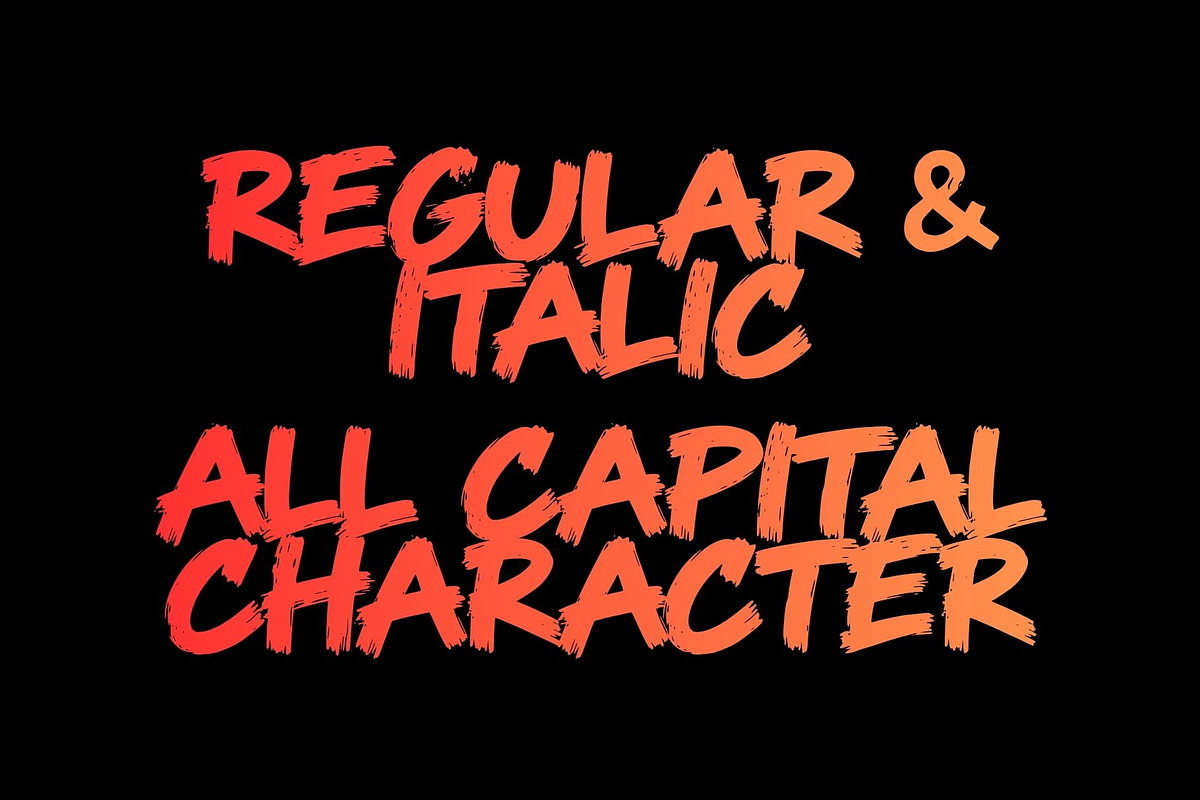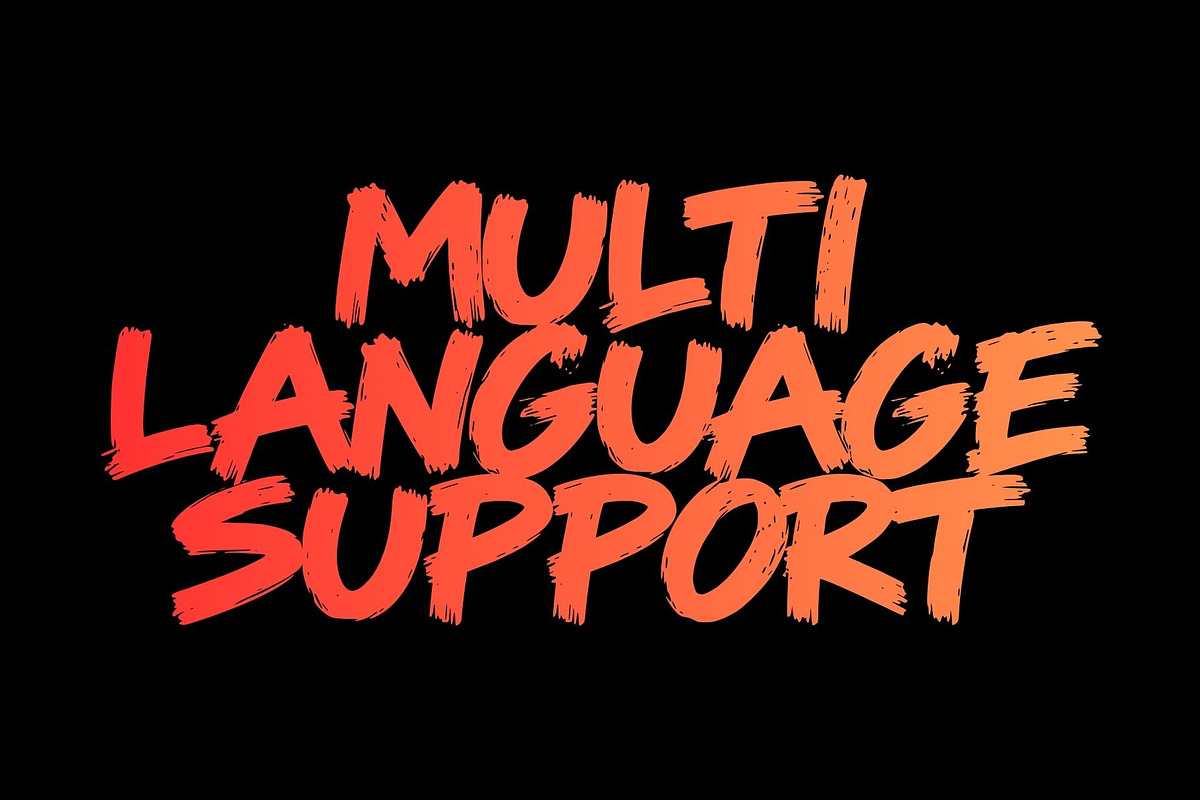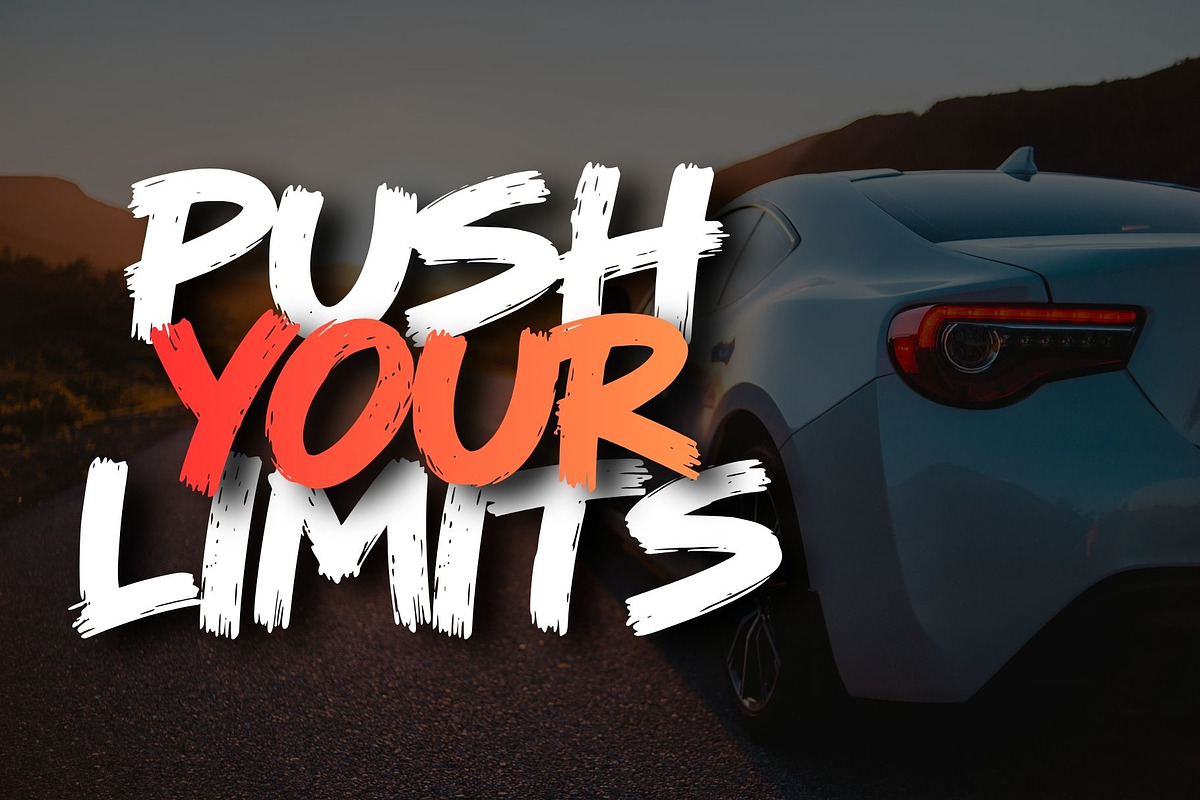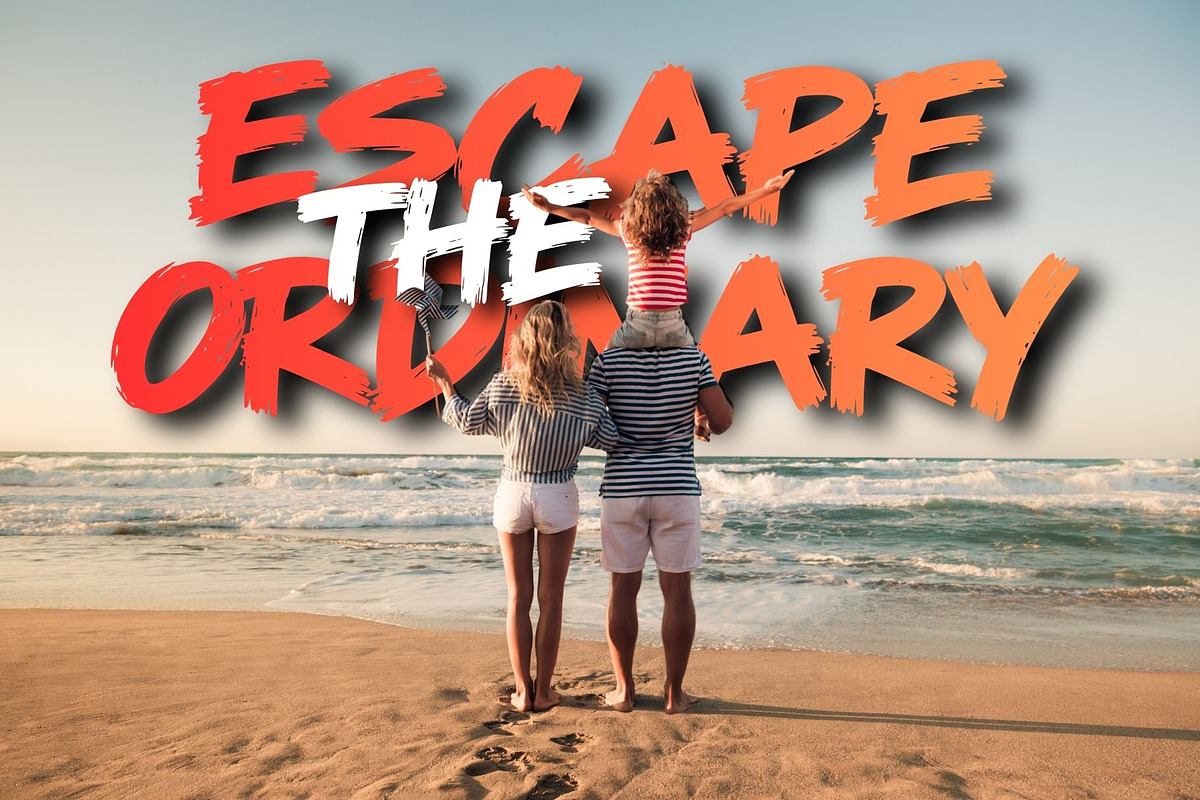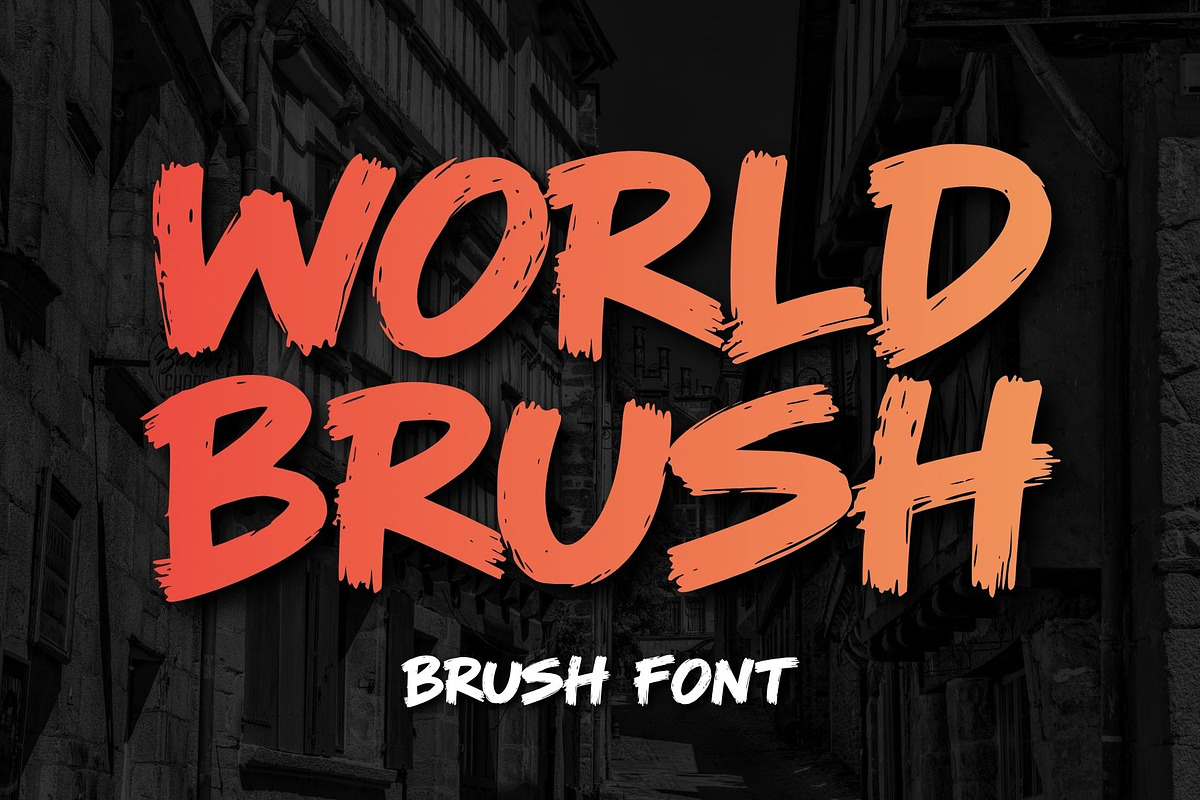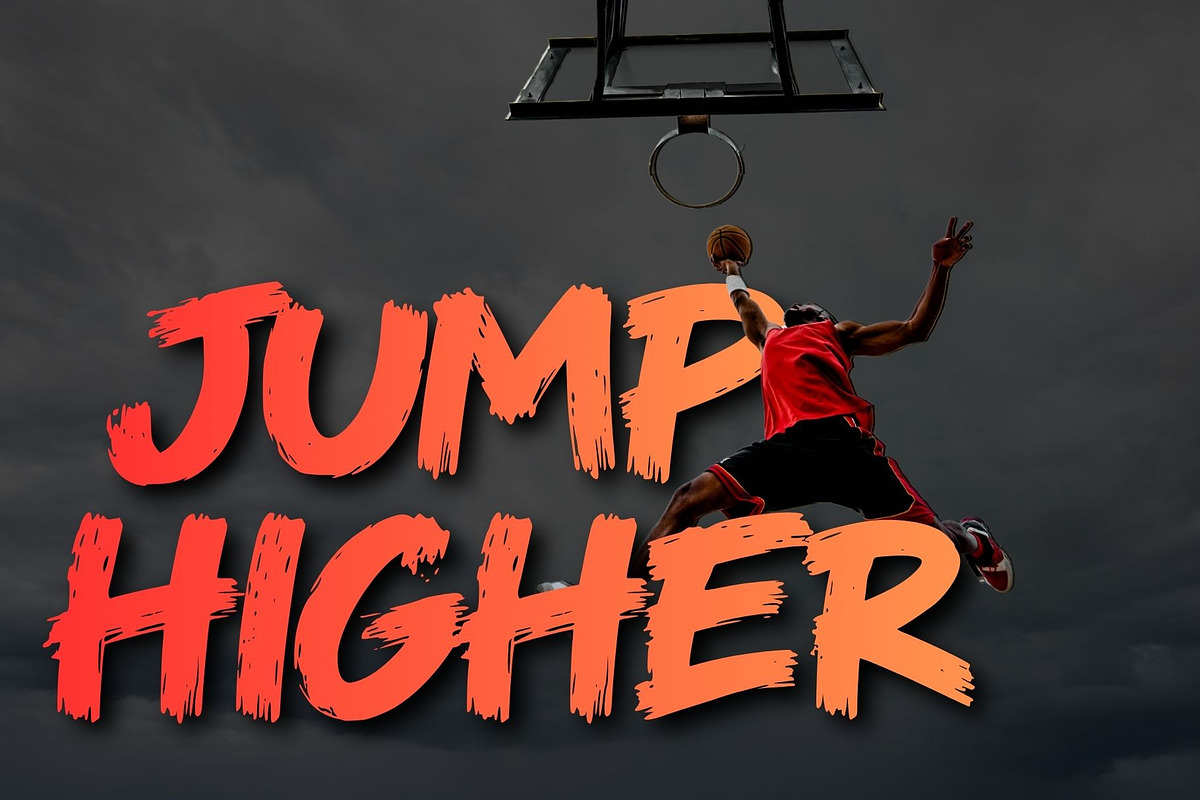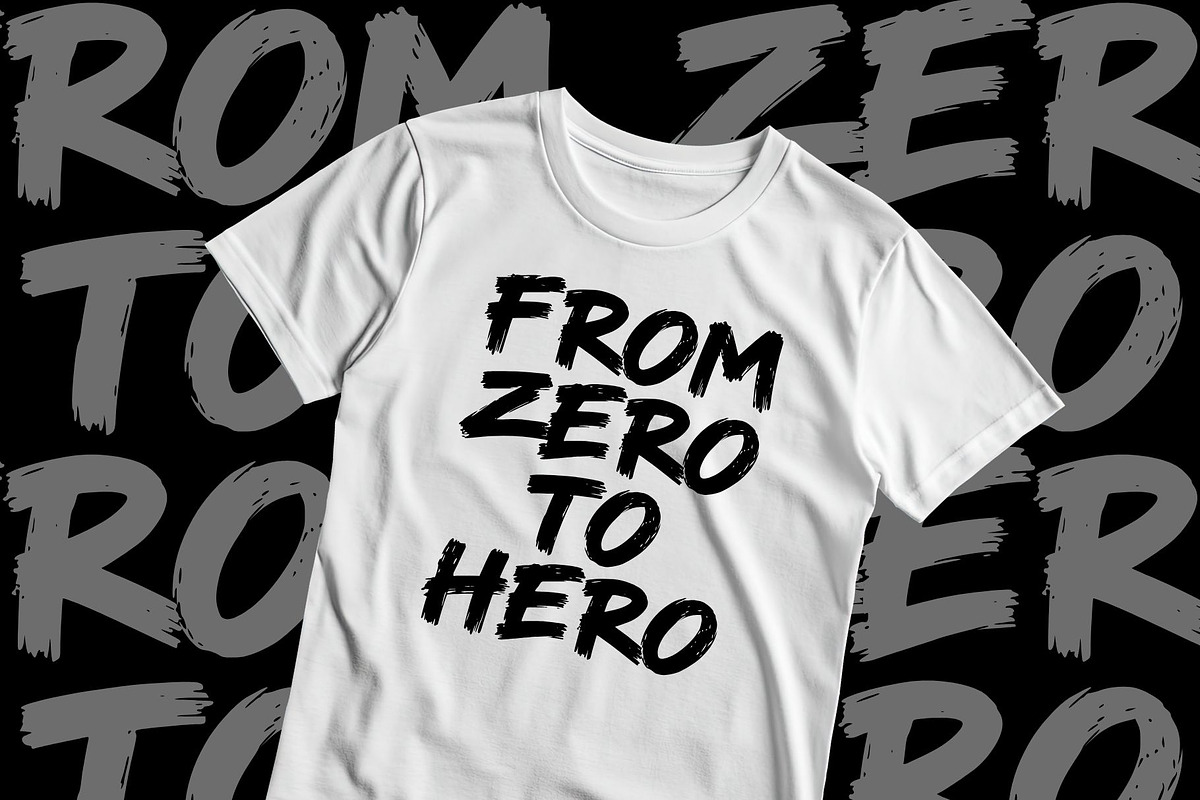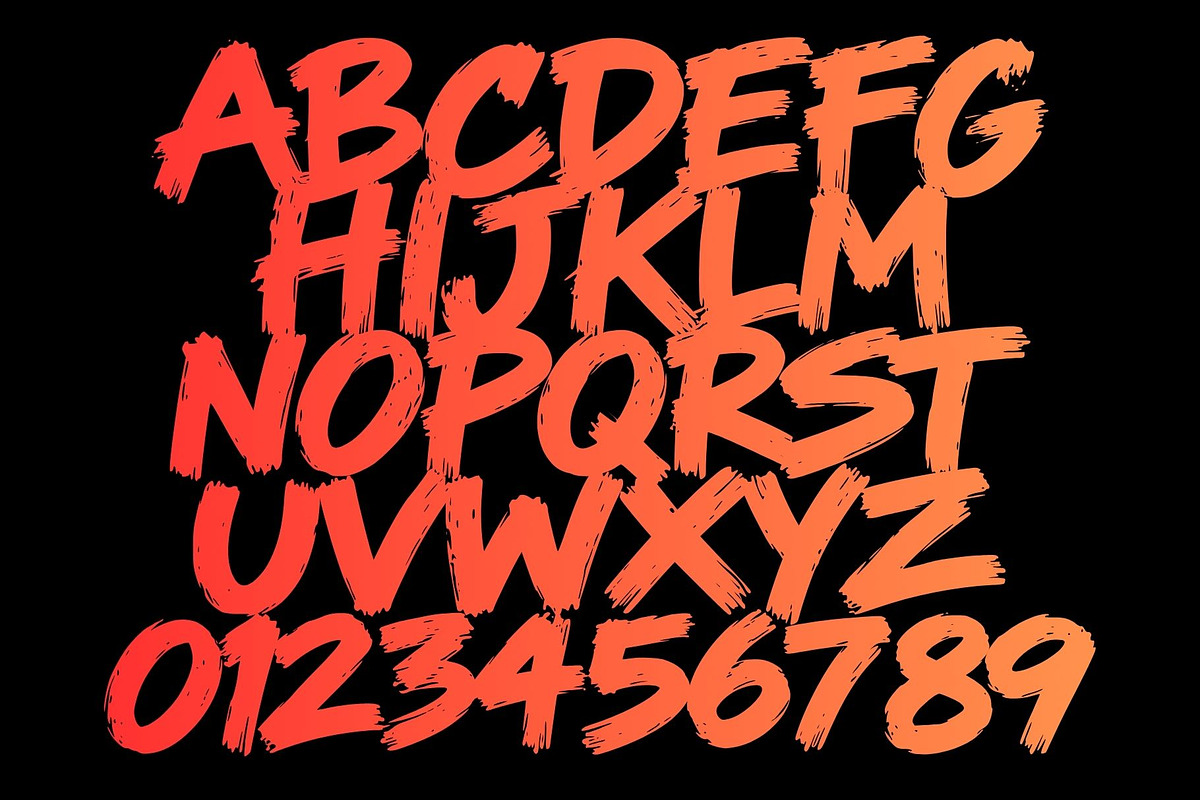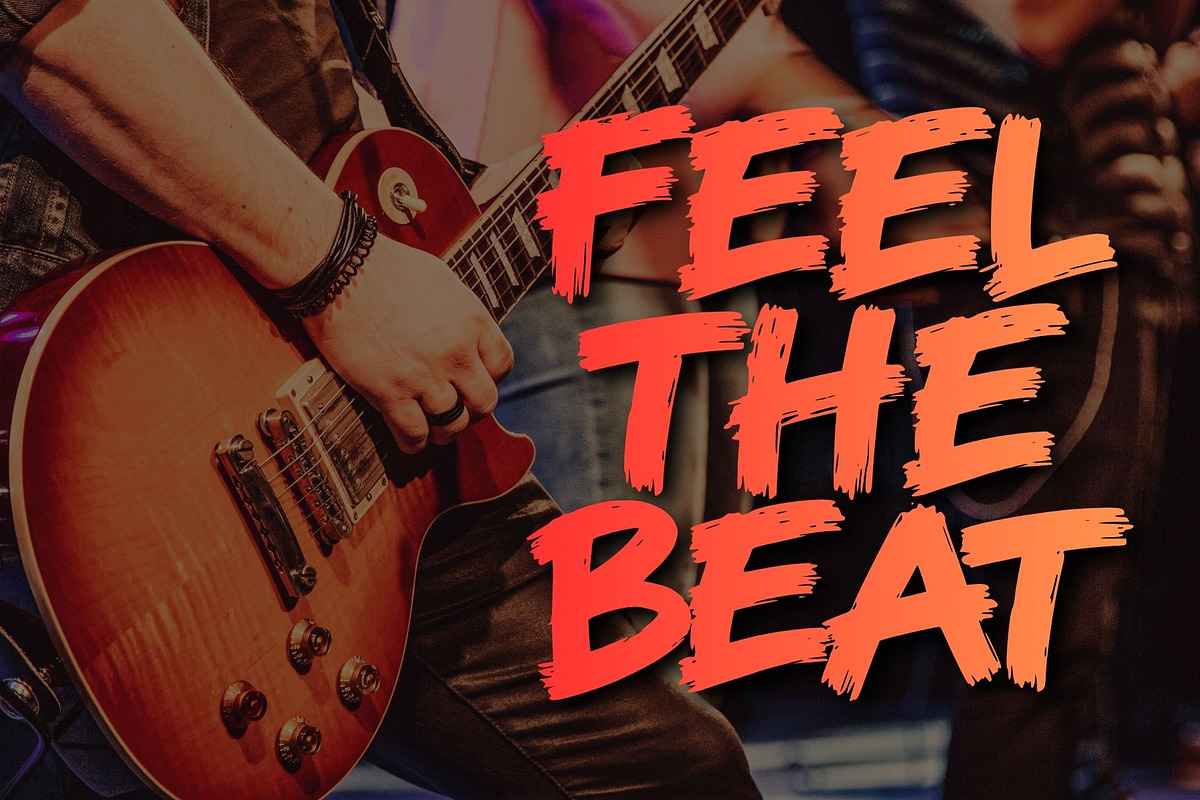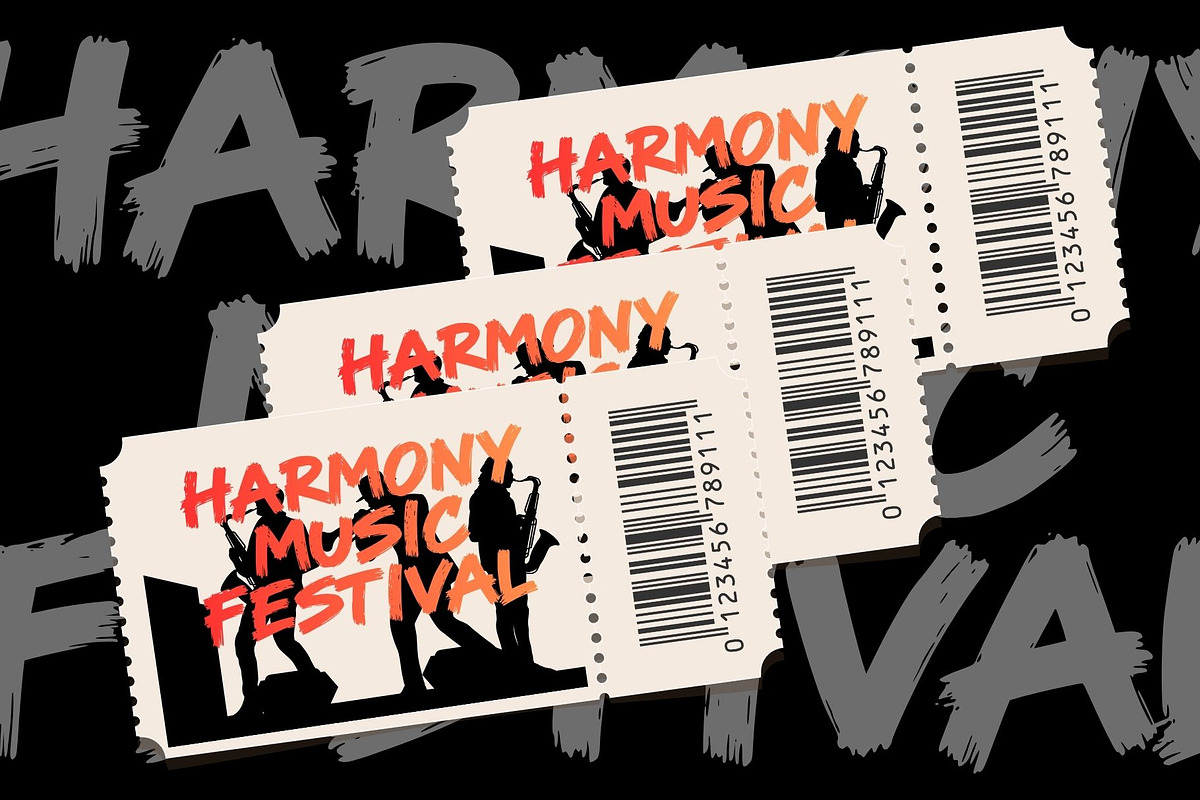
World Brush
World Brush is a bold and expressive hand-painted brush font inspired by street art, urban culture, and raw artistic expression. Its rough edges, dynamic strokes, and handcrafted appearance create a strong and energetic visual style. Perfect for streetwear, skateboarding designs, posters, logos, music artwork, album covers, branding, merchandise, and other urban-themed projects.